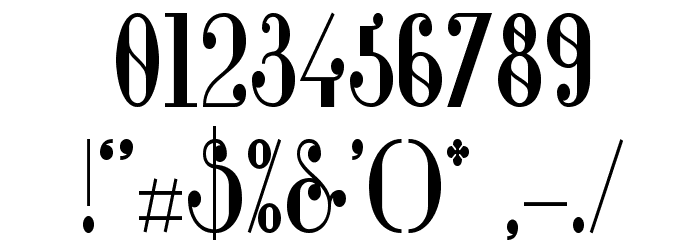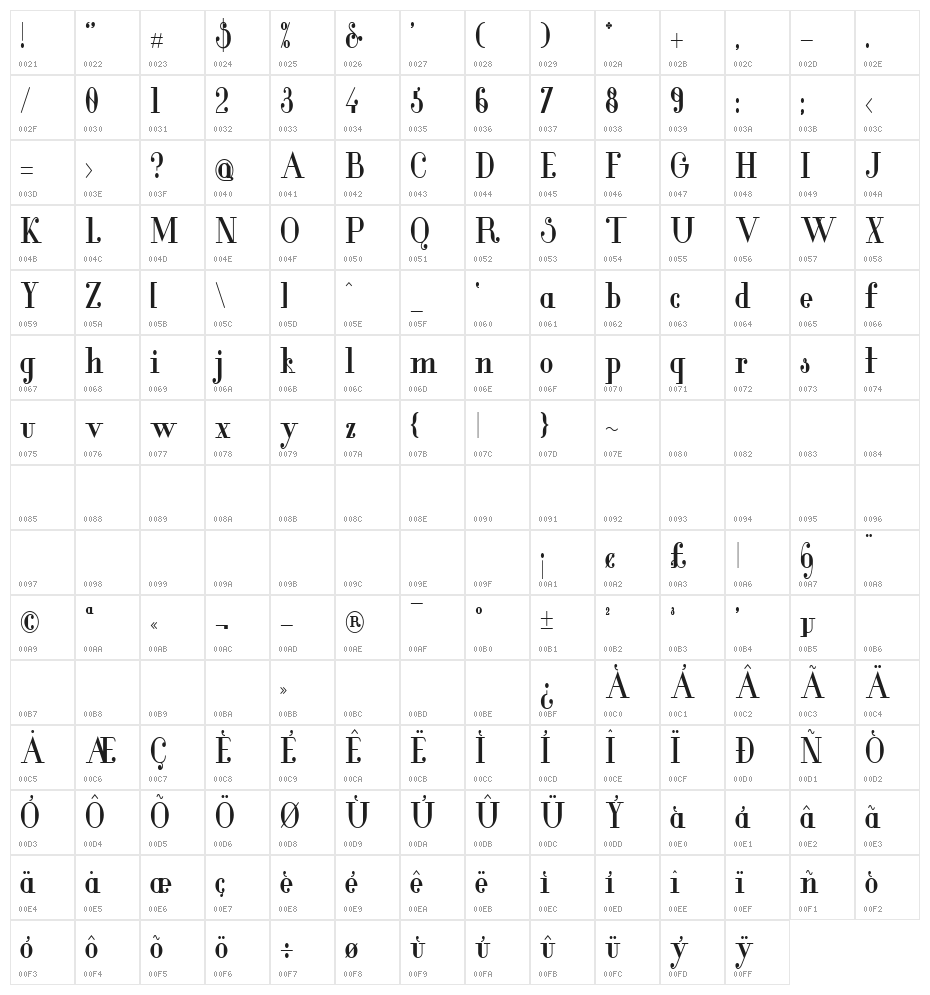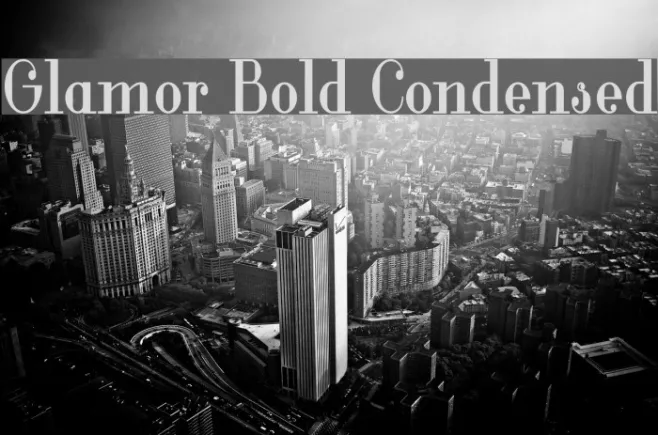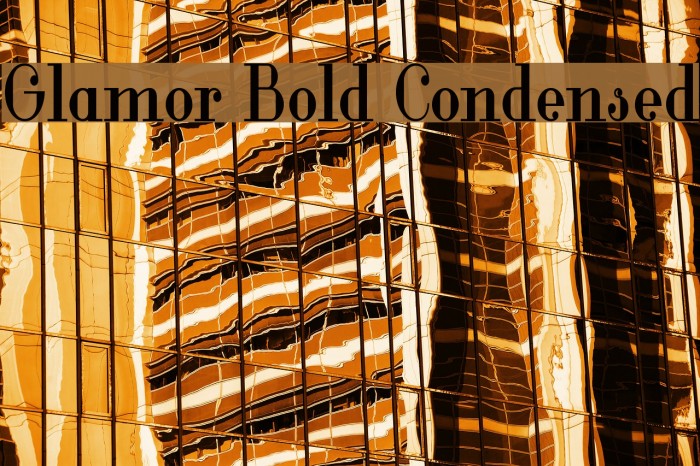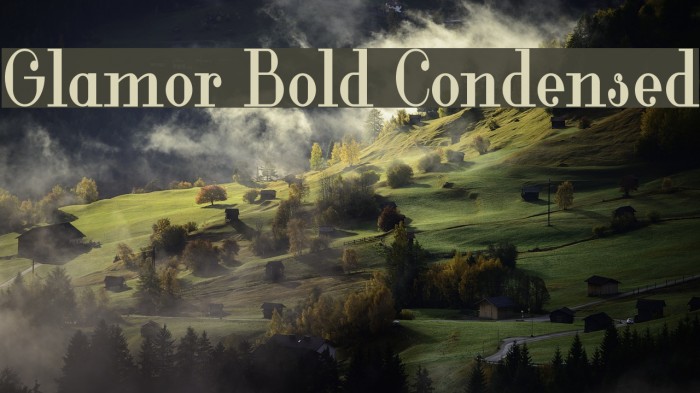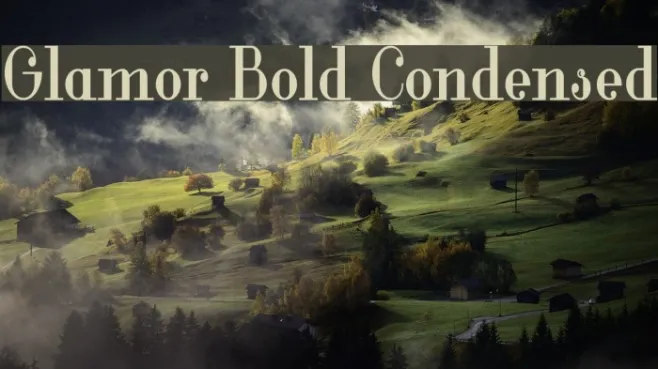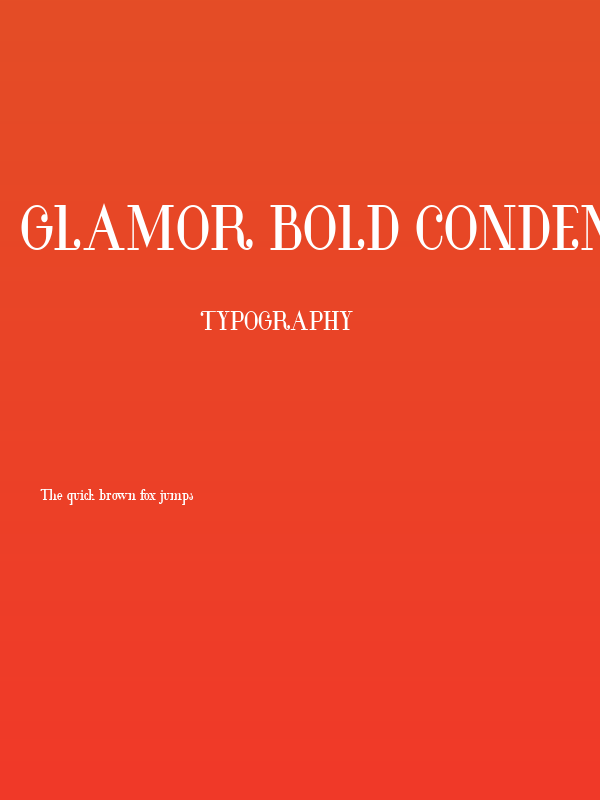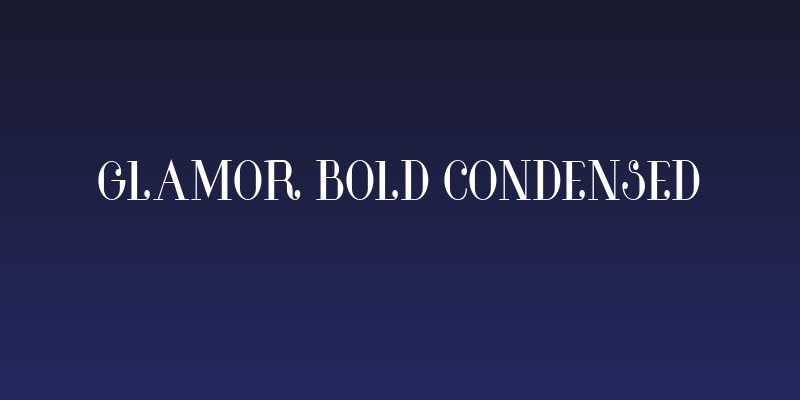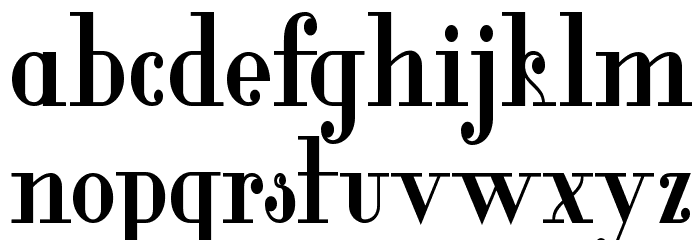
Glamor Bold Condensed Font
Glamor Bold Condensed Description
This font features a bold and condensed style with a distinct elegance. The uppercase letters are tall and narrow, with a high contrast between thick and thin strokes, giving it a sophisticated and modern appearance. The lowercase letters maintain the same contrast, with unique characteristics such as the curved tail on the 'g' and the distinctive loop of the 'k'. The numerals are equally stylish, with a consistent height and a slight flair on certain numbers like '2' and '5'. Special characters are designed with a similar flair, making them stand out while maintaining readability. This font is perfect for making a bold statement while retaining a sense of class and refinement.